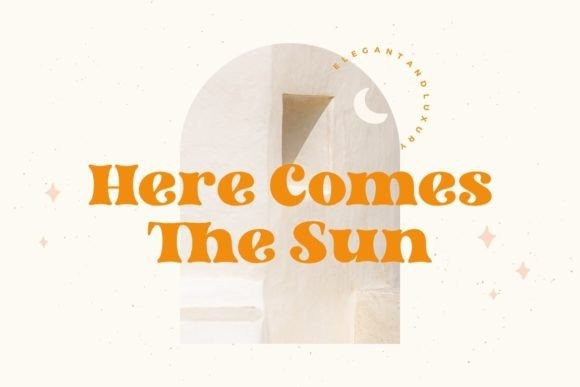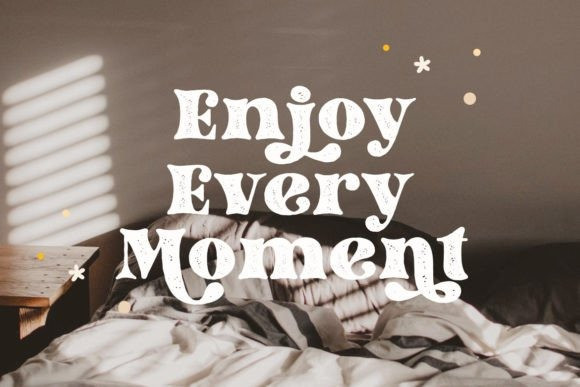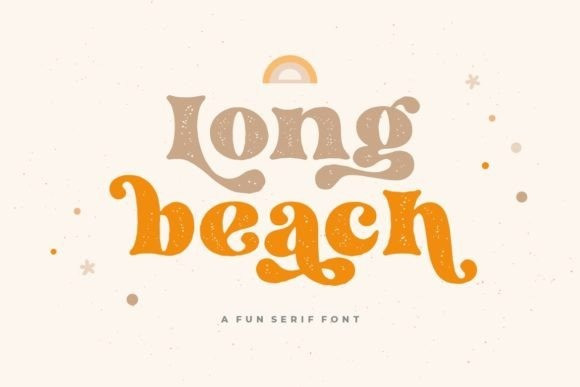
Long Beach Font
Long beach Font is a retro and bold serif font with a clean and textured version. Use this font to add that special retro touch to any design idea you can think of! Masterfully designed to become a true favorite, this font has the potential to bring each of your creative ideas to the highest level!